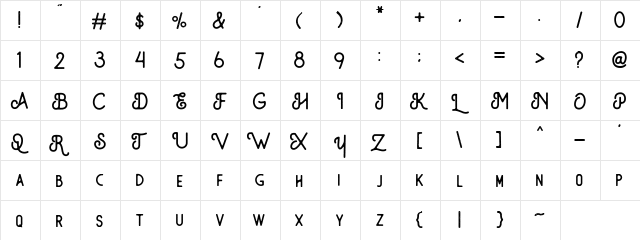
The Monokill Vintage
Design Context for The Monokill Typeface
The Monokill has the warm character of retro typography — evoking diners, record sleeves, and the golden age of print advertising.
Perfect for vintage-inspired branding, retro packaging, nostalgia campaigns, and period-accurate editorial design.
Font Pairing: Combine The Monokill with a simple slab or neutral sans — period-accurate companions reinforce the vintage feel without competing for attention.
Pro Tip: Use The Monokill for headlines and pull quotes rather than body copy — its personality is best appreciated in short, focused bursts.